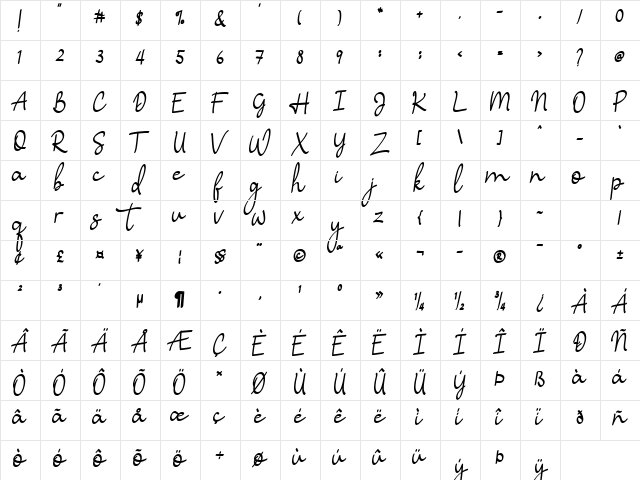
Hamuna Regular
| Designer | AEN Creative Studio 2019 |
Design Context for Hamuna Typeface
Hamuna is a composed and adaptable typeface that performs quietly and consistently across a wide range of design contexts.